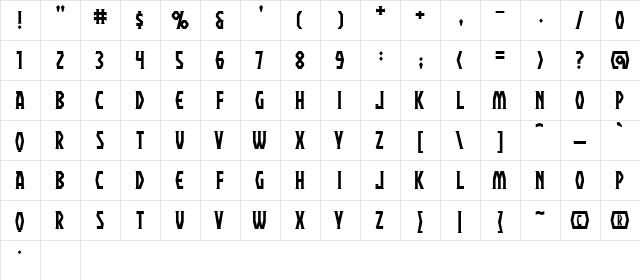
Praetorium BB Regular
Design Context for Praetorium BB Typeface
Praetorium BB takes a measured approach to typography — its balanced proportions and neutral character make it a reliable workhorse for both digital and print work.